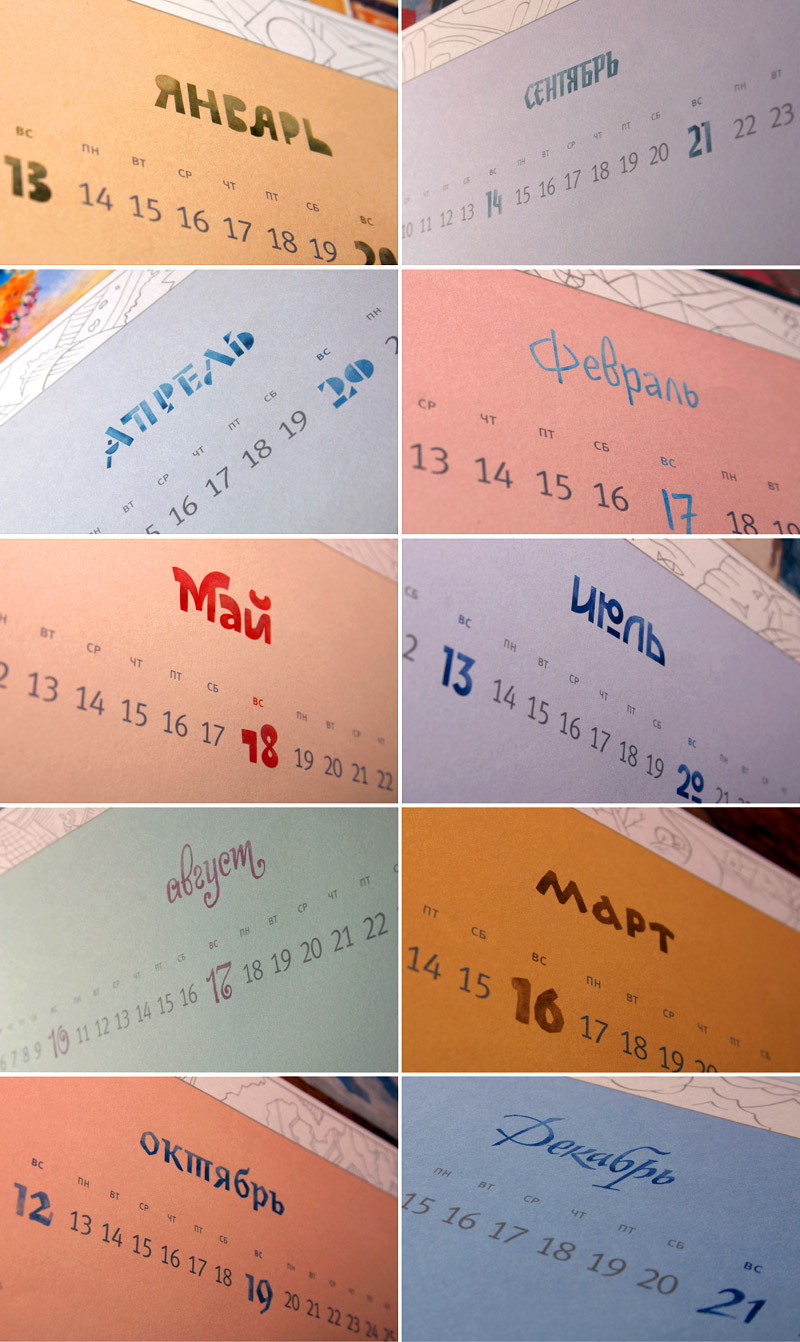
VTB lettering
Lettering for the calendar of the VTB (bank) , devoted to European paintings. Letters that meet the spirit of the artist and a specific of the painting. For example, «April» is one of the Vasiliy Kandinsky's works, and «August» is Henri Matisse's one. Sometimes the letters copies the painter's specific (like geometric design in «January»), sometimes the style of the picture ( «July» is full of art deco), sometimes typographic traditions of the region ( «March» simulates massive xylography types, which were popular among Baltic artists).